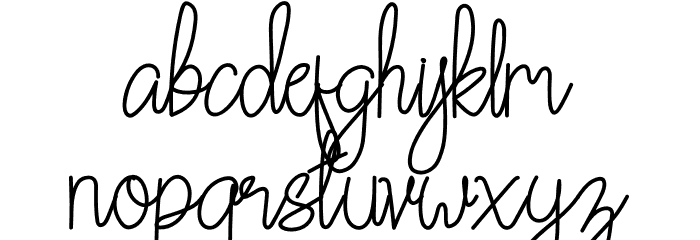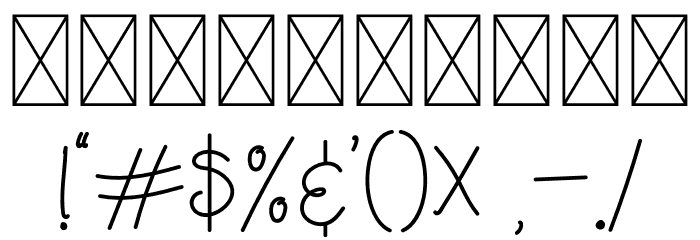
ChattagirieFree Bold Font
A playful, handwritten script font with a casual and flowing style, featuring connected letters and a natural, informal appearance.
Playful handwritten script font.
- Proposed Projects: Greeting cards, invitations, personal branding.
- Category: Script
- Overall Style: Casual, Informal
- Use Case: Logos, Invitations